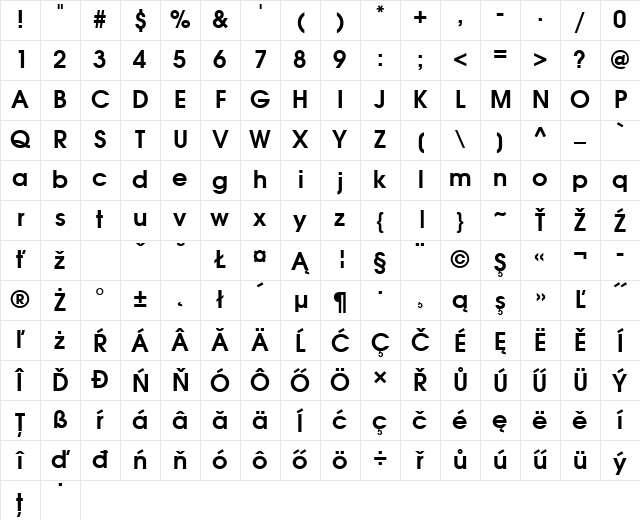
AvantGarGotItcLEE Bold Free Font
AvantGarGotItcLEE Bold
AvantGarGotItcLEE Family
Design Context for AvantGarGotItcLEE
AvantGarGotItcLEE is a composed and adaptable typeface that performs quietly and consistently across a wide range of design contexts. Its bold stroke weight gives it real presence on the page.